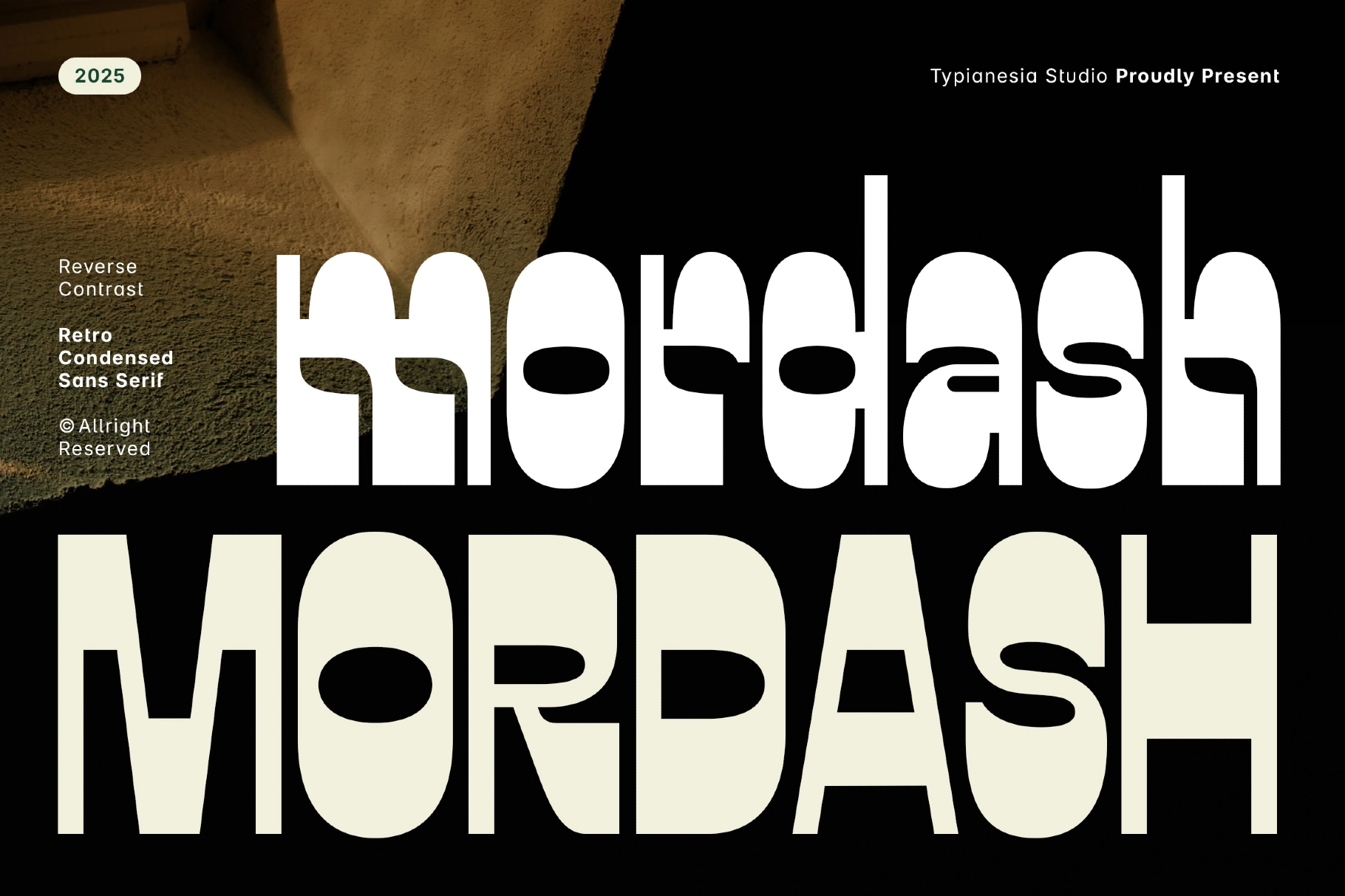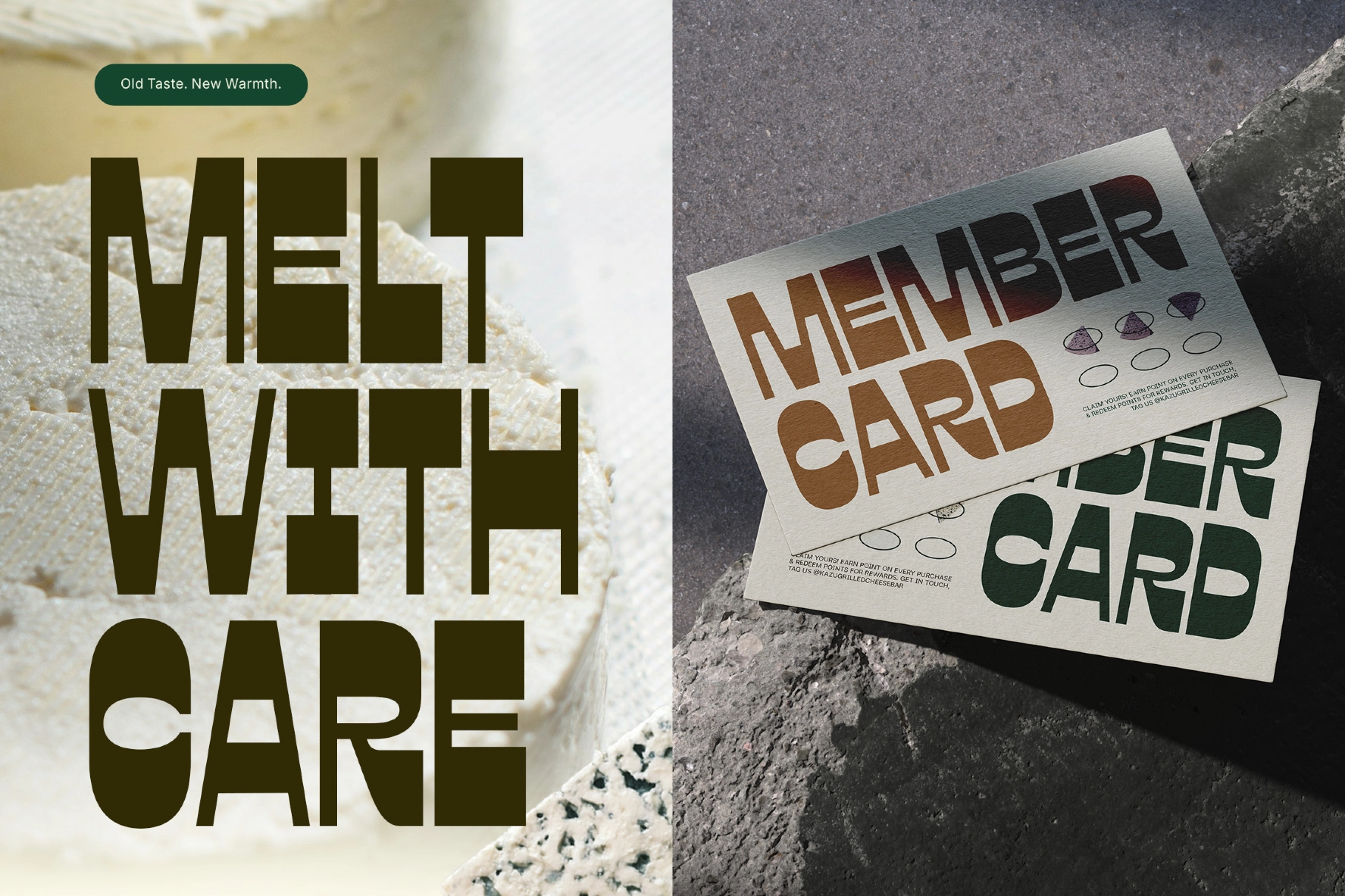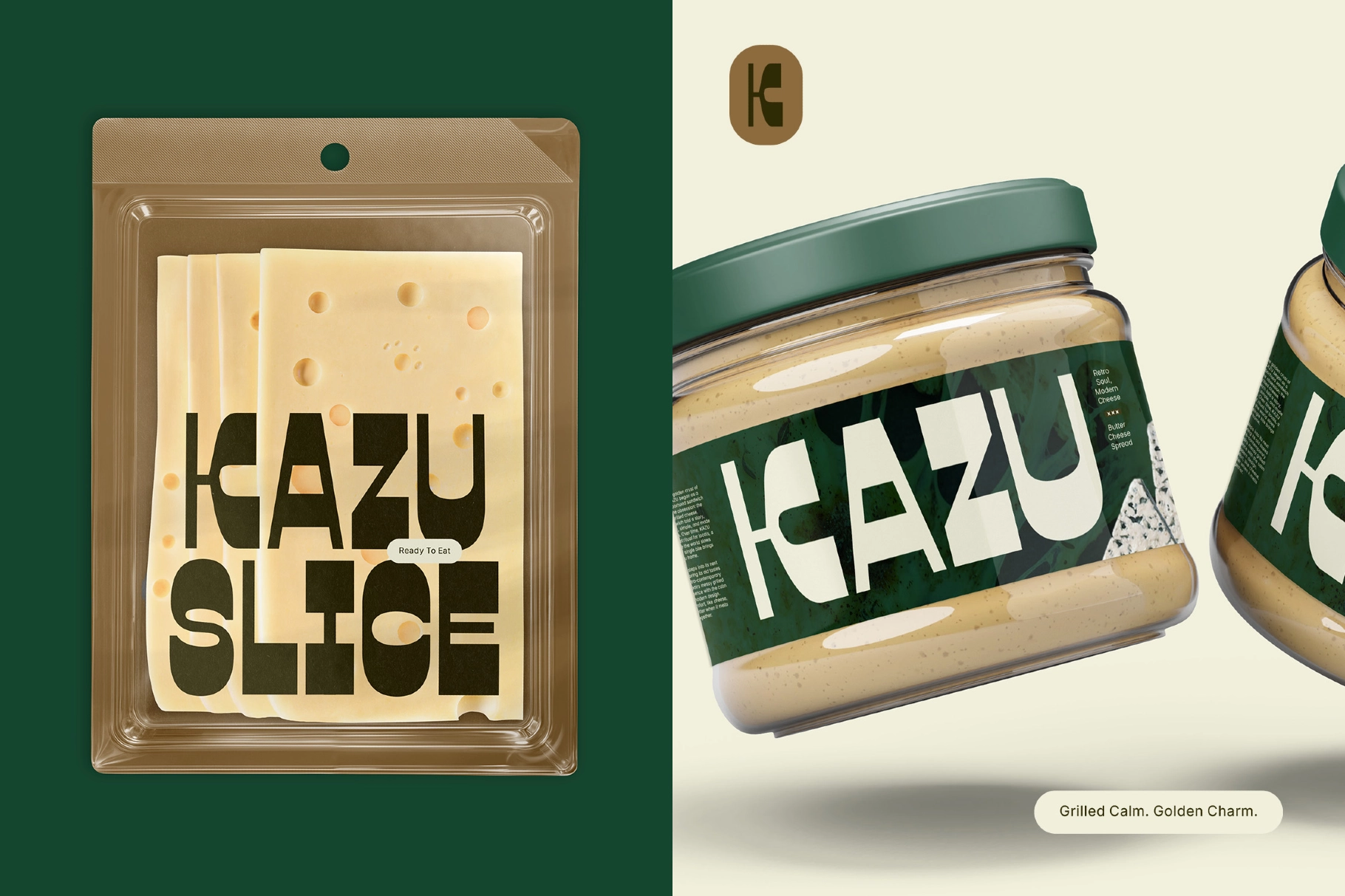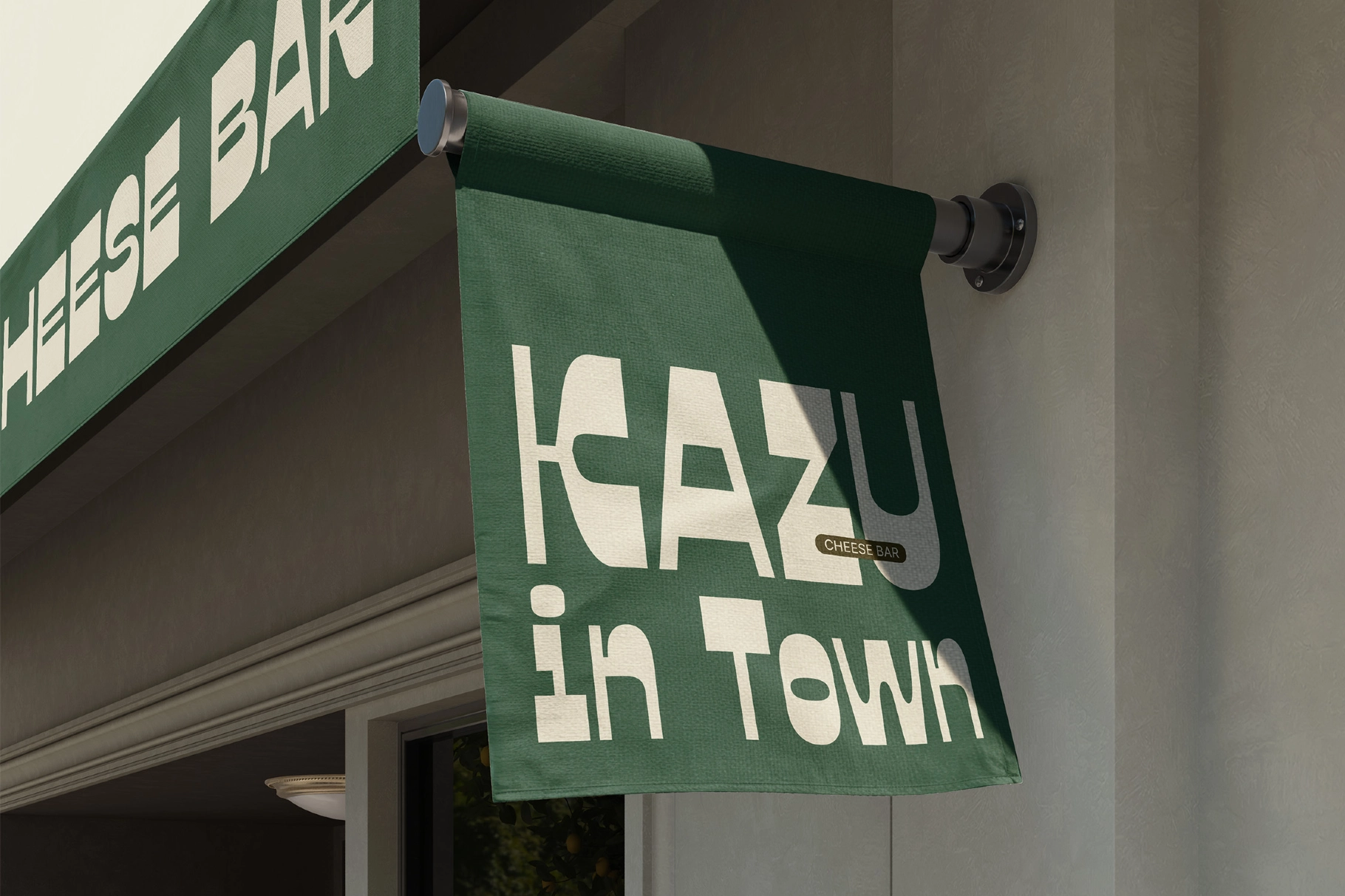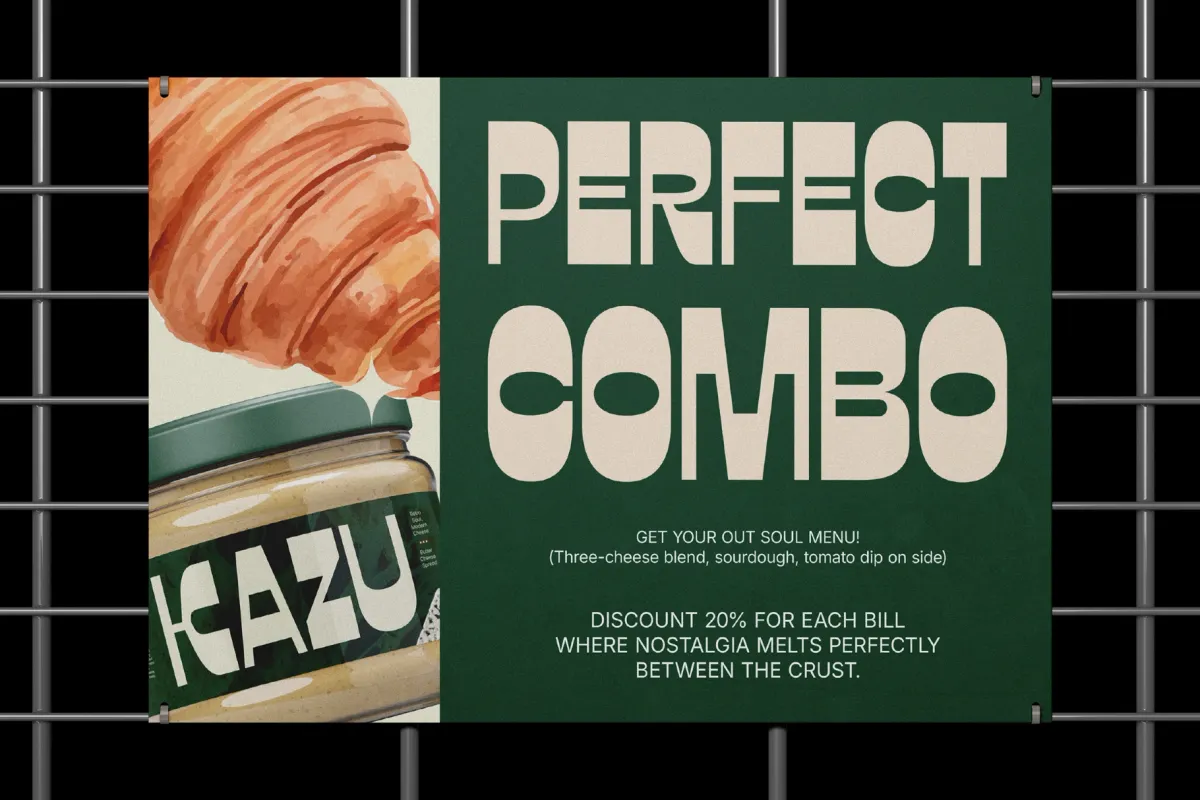
Mordash - Retro Condensed Sans Serif Font
Mordash
Mordash – Retro Condensed Sans Serif Font is a bold display typeface inspired by the energetic visual language of the 1980s. Built with tall condensed letterforms and distinctive reverse contrast, it creates a strong visual rhythm that instantly captures attention. The rounded terminals and clean geometry give the font a balance of retro personality and modern clarity.
Perfect for branding, posters, packaging, editorial headlines, and hospitality design, Mordash brings a nostalgic yet contemporary character to creative projects that need a memorable and stylish typographic voice.
- Tall, condensed sans serif structure
- Reverse contrast creates distinct visual hierarchy
- Smooth, rounded terminals for a modern finish